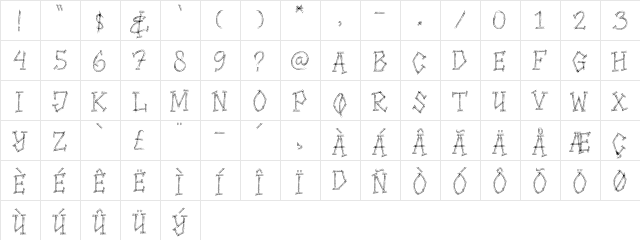
HIGHWAY SHREDDED Regular
| Designer | Amin Mario 2019 |
Design Context for HIGHWAY SHREDDED Typeface
HIGHWAY SHREDDED is a composed and adaptable typeface that performs quietly and consistently across a wide range of design contexts.